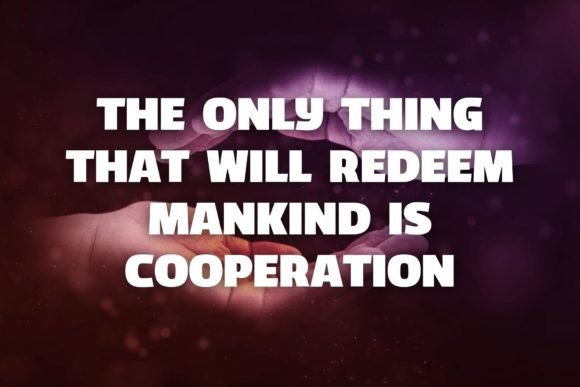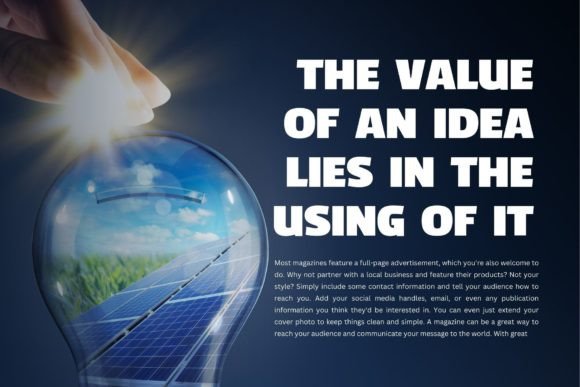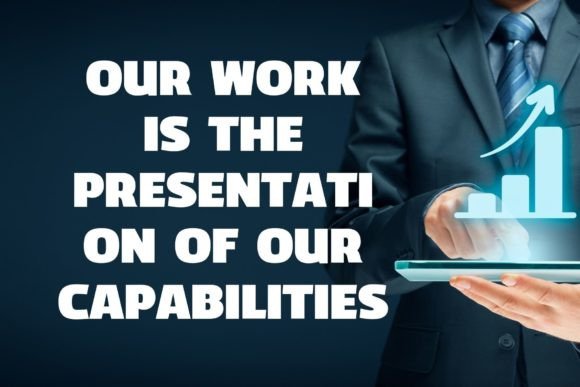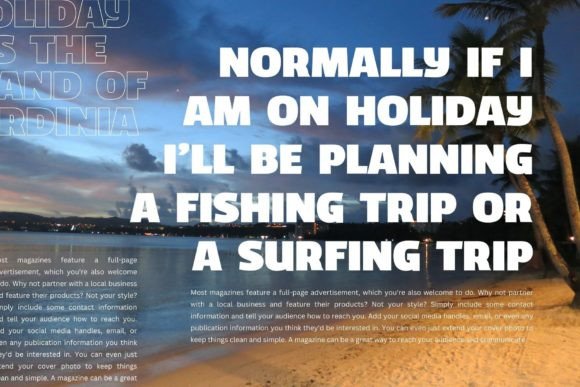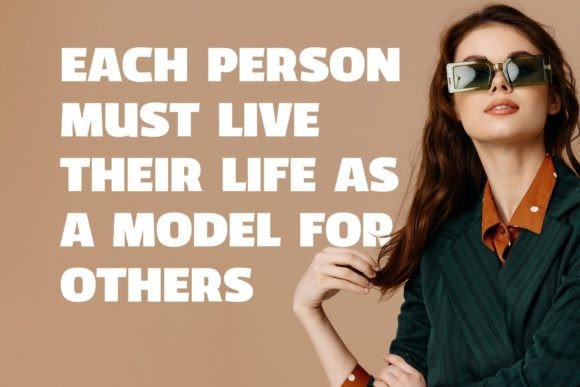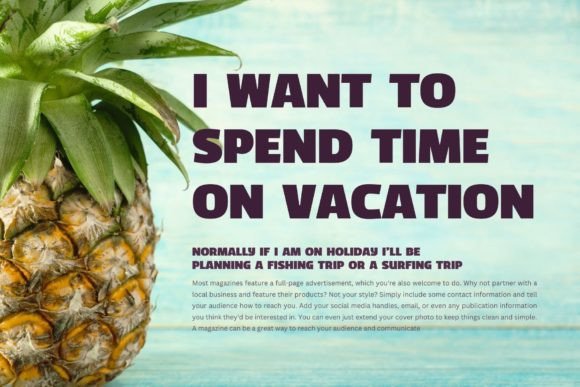
Unlocking the Power of Energy Font: Elevate Your Designs with a Timeless Classic
In the world of design, fonts play a crucial role in conveying messages, evoking emotions, and creating lasting impressions. Among the numerous font styles available, the Energy Font stands out as a minimalist masterpiece, perfect for a wide range of design applications. Inspired by famous logos, this font has become a staple in the design community, and for good reason. In this article, we’ll explore the versatility and elegance of Energy Font, and how it can elevate your designs, from templates and brochures to logos, branding, and more.
The Birth of a Timeless Classic
The Energy Font owes its existence to the iconic minimalist logos that have become synonymous with modern design. By distilling the essence of these logos, designers have created a font that embodies simplicity, sophistication, and elegance. The result is a versatile typeface that can be used in various design contexts, from corporate branding to creative projects.
Design Applications: Where Energy Font Shines
One of the key strengths of Energy Font lies in its adaptability. Here are some design applications where this font truly excels:
- Templates: Create stunning templates for presentations, reports, or social media campaigns with Energy Font as the centerpiece.
- Brochures: Make a lasting impression with professionally designed brochures that showcase your products or services in style.
- Videos: Add a touch of sophistication to your video content with Energy Font used in titles, subtitles, or lower thirds.
- Advertising: Craft compelling ad copy that grabs attention and communicates your message with clarity and elegance.
- Branding: Establish a strong brand identity with Energy Font used in logos, business cards, or letterheads.
- Logos: Create memorable logos that convey your brand’s values and personality with Energy Font.
- Invitations: Design beautiful invitations for special events, weddings, or parties that exude style and refinement.
- Layout Design: Use Energy Font to create visually appealing layouts for magazines, newspapers, or online publications.
- Elegant Crafting: Add a touch of luxury to your crafting projects, such as handmade cards, gift tags, or scrapbooking.
- Beauty Design: Elevate your beauty designs, including makeup tutorials, product packaging, or salon branding.
Why Designers and Crafters Love Energy Font
So, what makes Energy Font a favorite among designers and crafters? Here are a few reasons:
- Versatility: Energy Font is incredibly versatile, making it suitable for a wide range of design applications.
- Elegance: The font’s minimalist design exudes elegance and sophistication, perfect for high-end branding or luxury products.
- Readability: Energy Font is highly legible, even at small font sizes, ensuring your message is communicated clearly.
- Customizability: The font can be easily customized to fit your brand’s style, from adjusting font sizes to experimenting with colors.
Tips for Getting the Most Out of Energy Font
To maximize the impact of Energy Font in your designs, consider the following tips:
- Pair with complementary fonts: Combine Energy Font with other fonts to create visual interest and add depth to your designs.
- Experiment with colors: Try out different color schemes to find the perfect match for your brand or design.
- Play with font sizes: Use varying font sizes to create a visual hierarchy and draw attention to key elements.
- Keep it simple: Don’t be afraid to keep your design simple and clean, allowing Energy Font to take center stage.
In conclusion, Energy Font is a timeless classic that offers designers and crafters a world of creative possibilities. Its versatility, elegance, and readability make it an excellent choice for a wide range of design applications. By incorporating Energy Font into your designs, you’ll be able to create stunning visuals that leave a lasting impression on your audience.